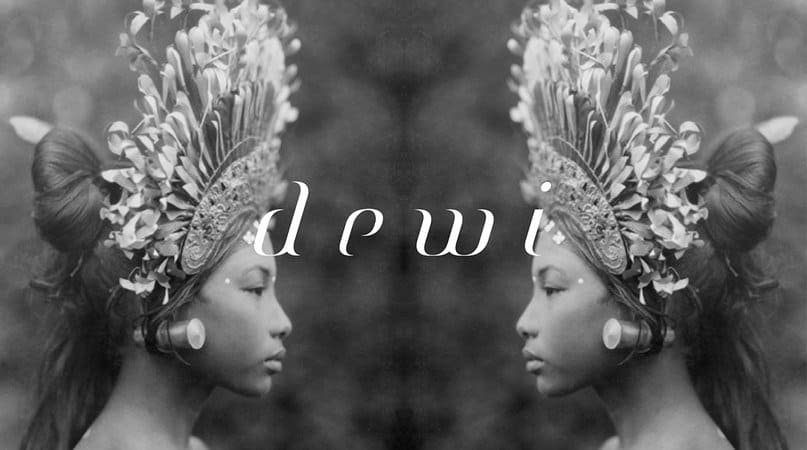
dewi
Explore the Unique Features of Dewi Font
Dewi Font, crafted by renowned designer John Smith in 2023, presents a blend of modern aesthetics and functionality. With its clean lines and sophisticated appearance, Dewi is perfect for a variety of applications, including branding, advertisements, and digital media. Its versatility makes it an excellent choice for designers seeking a fresh and unique font style.
The Creative Journey Behind Dewi Font
Inspired by minimalistic design and modern typography trends, Dewi Font was developed to offer both beauty and practicality. John Smith’s innovative approach to font creation ensures that each character harmonizes perfectly, making it an ideal choice for designers wanting to make a statement with their work.
Best Uses for Dewi Font
Dewi Font excels in applications that require a contemporary and stylish appearance. Whether it’s for branding, promotional materials, or web design, Dewi delivers a unique flair that stands out. Its distinctive style enhances any project, ensuring it captures attention and leaves a lasting impression.